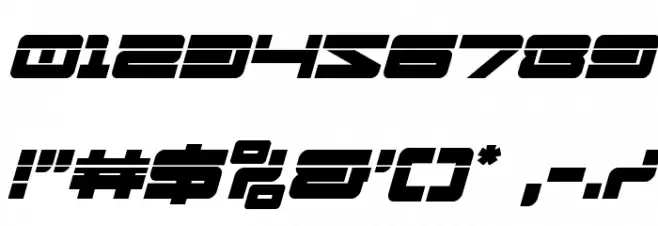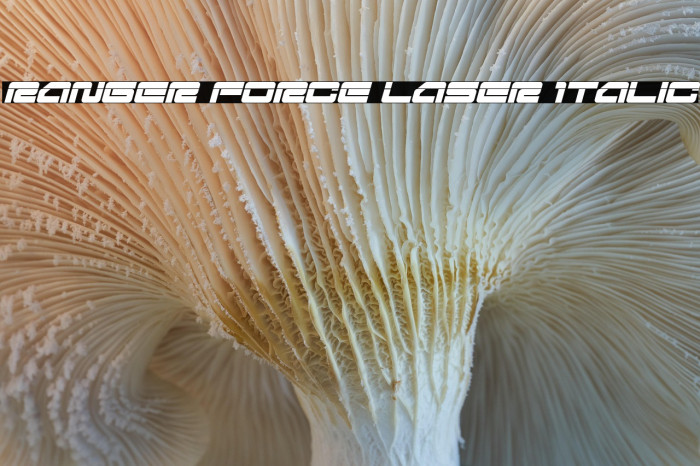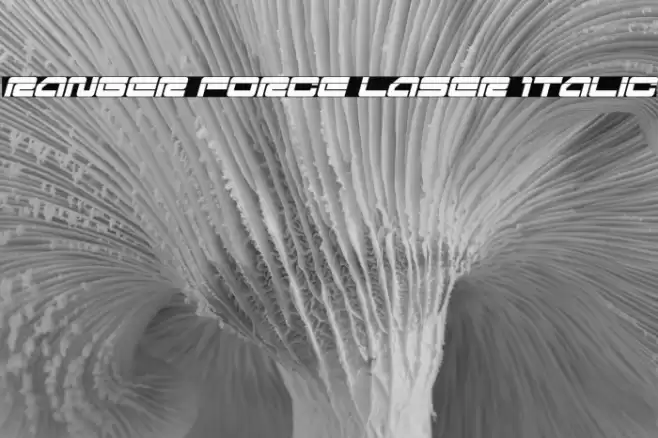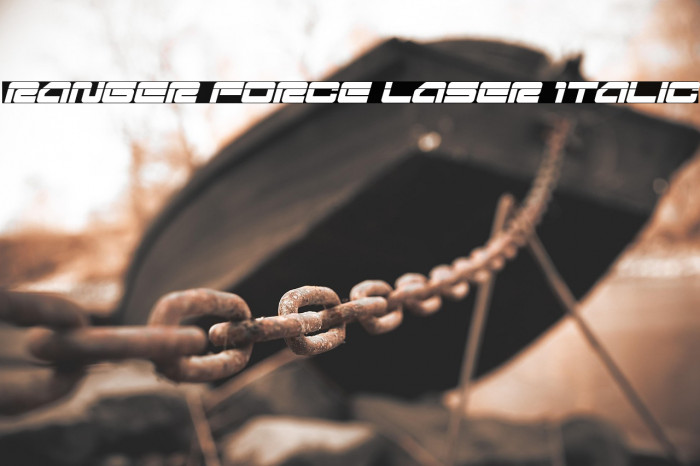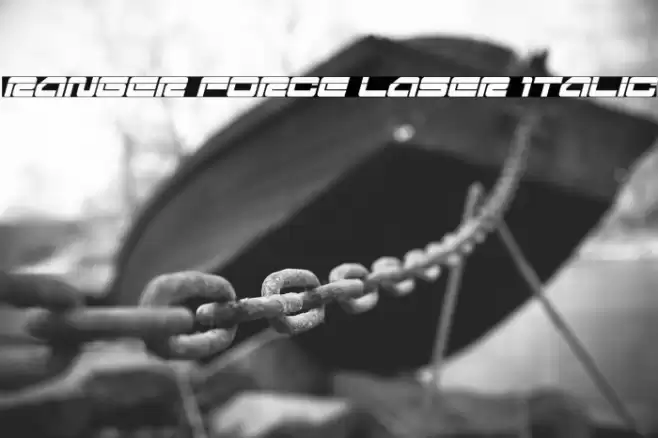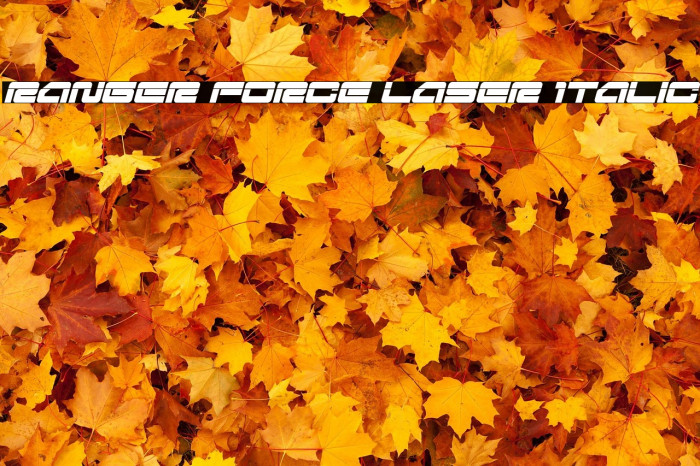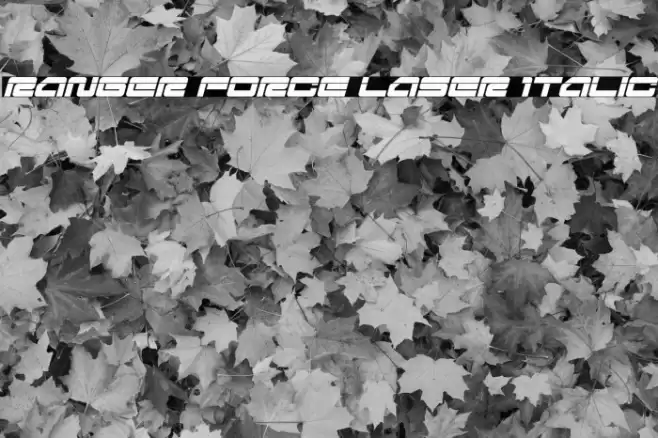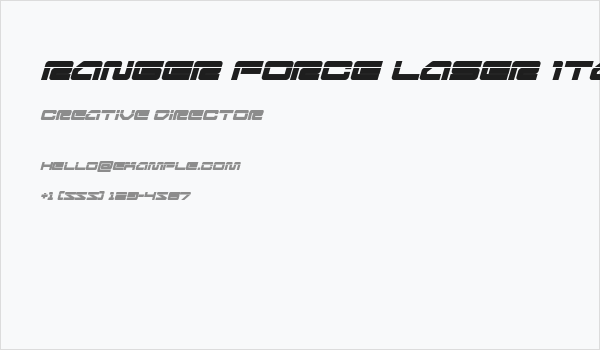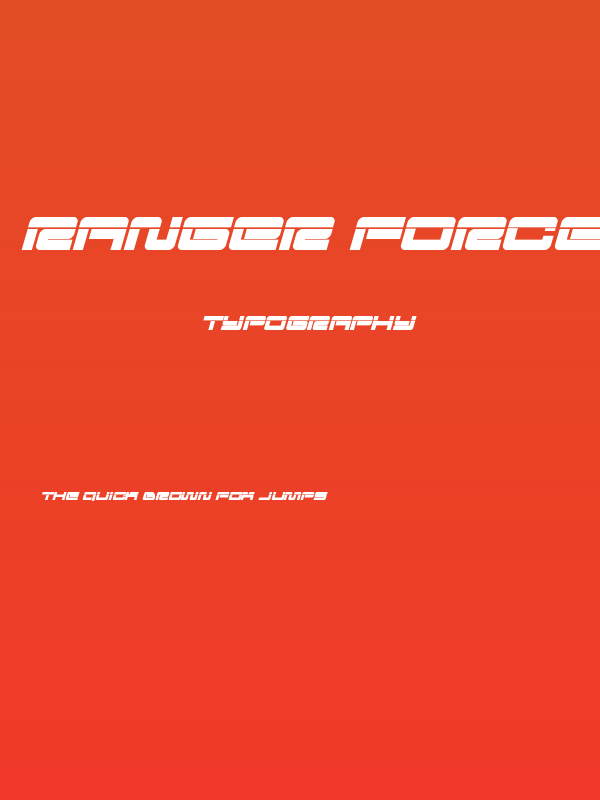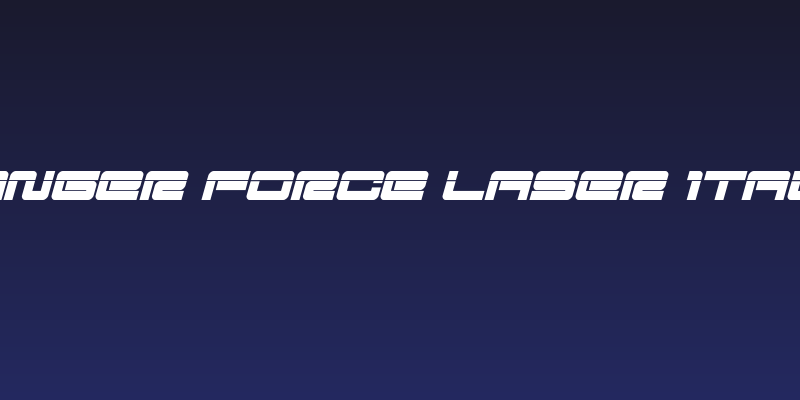
Ranger Force Laser Italic Font
Ranger Force Laser Italic Description
This font features a futuristic and angular design, characterized by its bold, geometric shapes and italicized slant. The characters are constructed with sharp edges and a consistent stroke width, giving it a modern and dynamic appearance. The uppercase and lowercase letters maintain a uniform style, with the lowercase mirroring the uppercase in form. The numerals and special characters follow the same design principles, ensuring a cohesive look across all glyphs. The font's strong visual impact makes it suitable for attention-grabbing applications.
| Proposed Projects | Ideal for sci-fi themed projects, video game titles, movie posters, and branding that requires a modern, high-tech aesthetic. |